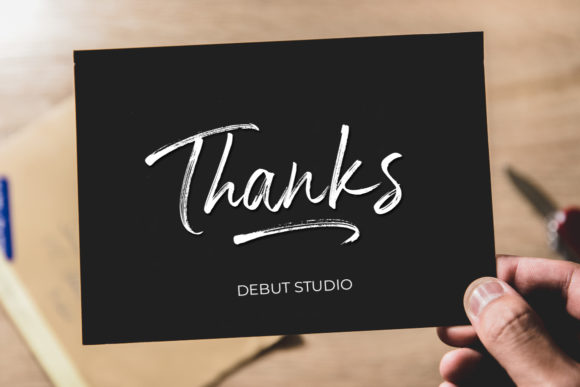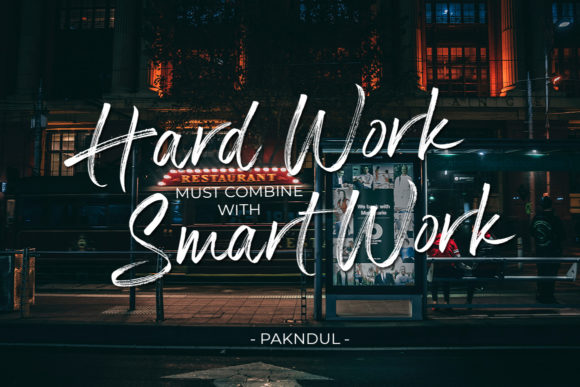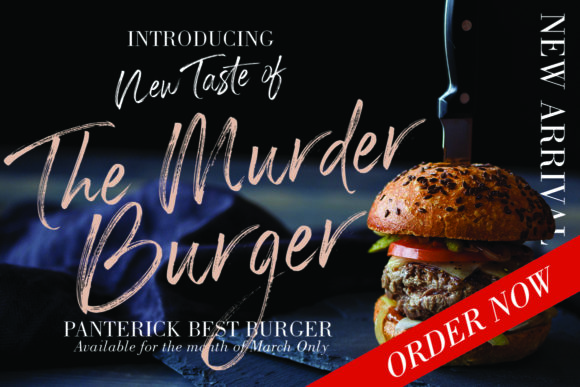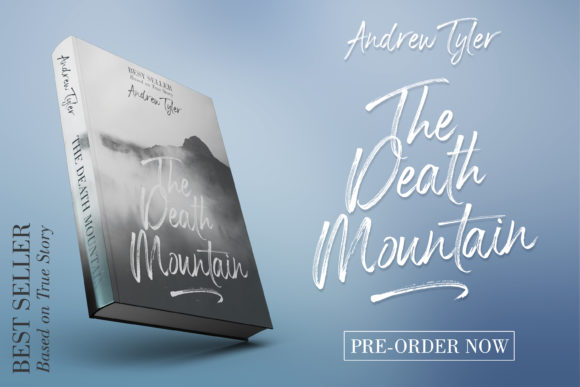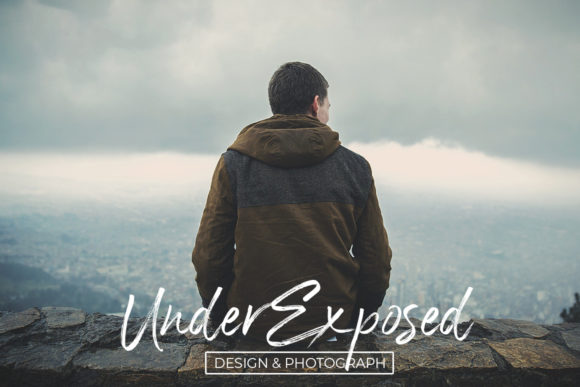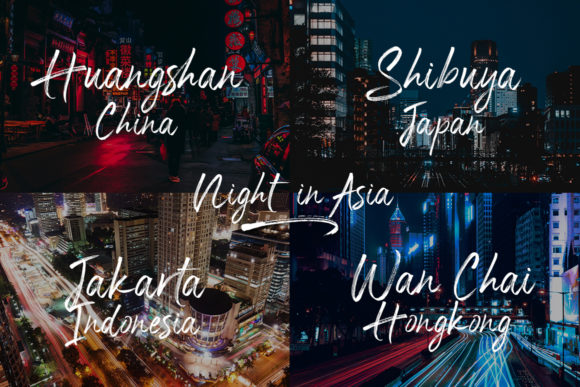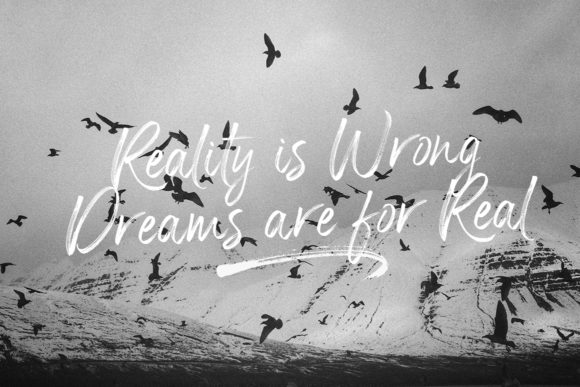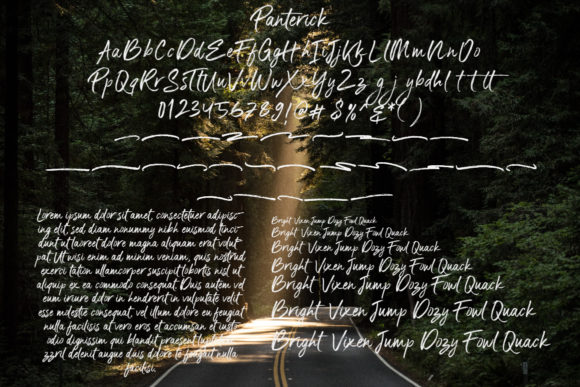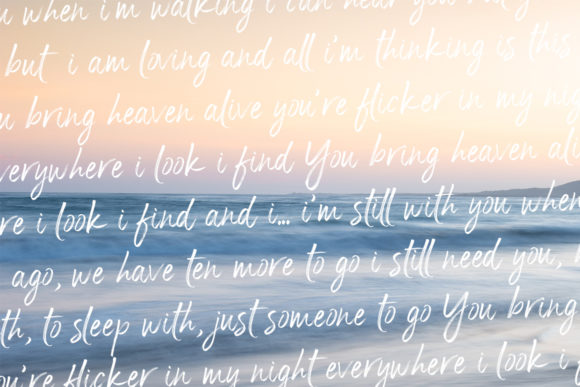
Panterick Font
About Panterick Font
Panterick is a bold and beautiful handwritten font with a unique feel. It will add a touch of authenticity to any design idea!